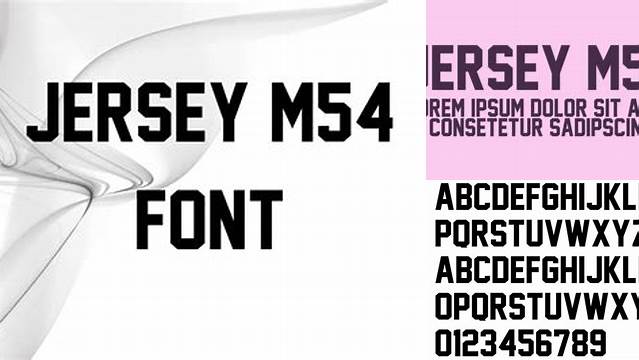
Jersey M54 Font: Free Download & Design Tips
Hey everyone! Today, we're diving deep into the world of typography, specifically focusing on the Jersey M54 font family, and guess what? You can get a jersey m54 font family free download! This awesome font has become a favorite for a ton of design projects, from sports jerseys and apparel to logos and branding. The Jersey M54 font boasts a unique, athletic aesthetic that's both modern and classic. In this article, we'll explore everything about this fantastic font, including where to find it, how to use it, and some cool design ideas to get your creative juices flowing. So, if you're ready to level up your design game, let's jump in!
Jersey M54 Font: Unveiling the Athletic Powerhouse
Alright, guys, let's get down to brass tacks. What exactly is the Jersey M54 font? In a nutshell, it's a typeface designed to capture the spirit of sports and athleticism. Think bold, impactful lettering that screams energy and dynamism. The Jersey M54 font family typically includes various weights and styles, like regular, bold, italic, and sometimes even condensed versions. This versatility makes it perfect for a wide range of applications. The inspiration behind this font comes from the world of sports, particularly the jerseys worn by athletes. The designers clearly took inspiration from the iconic numbers and lettering found on football, basketball, and baseball uniforms. The clean lines, strong presence, and slightly rounded edges give it a friendly yet assertive feel. It's a font that demands attention. If you’re looking to give your designs a sporty vibe, look no further. You'll find that the Jersey M54 font is super legible, even at smaller sizes, which is crucial for things like jersey numbers and team names. Its ability to convey a sense of speed and movement makes it a top choice for anything related to sports. Many designers also use this for branding. You can use it to make a logo for your own sports team, or you can create merchandise. Overall, the Jersey M54 font embodies a blend of style, functionality, and athletic heritage that is hard to match. It’s a versatile and impactful typeface that is ideal for designers who want to create work that resonates with the energy and passion of sports. In short, the Jersey M54 font is more than just a typeface; it's a statement.
Designing with the Jersey M54 Font: Best Practices
Now that you've got your Jersey M54 font family free download and installed it, it's time to put it to good use! But how do you do that? First, pick the right weight and style. The Jersey M54 font often comes in various weights (like regular, bold, and italic). Consider the purpose of your design. For headings and titles, go bold. For body text, stick to regular. Also, think about the overall tone you want to create. Bold weights convey strength, while italics can add a sense of motion. Next, make sure you choose the right colors. Complementary colors that enhance the energetic feel of the font are the best. Think about high-contrast color schemes that make the text pop. The right color can bring your design to life. Experiment with different color combinations until you find the ones that work best for your project. Another tip is to pay attention to spacing. Kerning and leading, which control the space between letters and lines, can significantly impact readability. Too much or too little space can make your design look cluttered or disjointed. Use design software to adjust these settings and ensure your text is easy to read. Be aware of the background and context. Consider how your text interacts with the background. Is it easy to read? Does it complement the design? Ensure your text is legible against the background. Use it on any dark backgrounds and stick to white or light-colored text. Try to ensure your background doesn’t distract from your words. One of the things you need to do is to keep it simple. Don’t overload your design with too much text. Focus on clear, concise messaging that is easy to understand. Less is often more in design. It will make your design more impactful. This is important in designing because you should focus on your target audience.
Jersey M54 Font in Action: Design Project Ideas
Ready for some inspiration? Let’s explore some cool design projects where the Jersey M54 font really shines. Sports Logos: Create logos for sports teams, leagues, or individual athletes. The bold, athletic feel is perfect for this. Experiment with different color schemes and shapes. Use the font to spell out the team name. Make sure the logo design is memorable. Team Apparel: Design t-shirts, jerseys, and other apparel for teams or sports-related businesses. Place the team name or player’s number on the front. The versatility of the Jersey M54 font makes it ideal. Event Posters: Promote sports events, tournaments, and championships with eye-catching posters. Use the font for the event title, date, and other important information. Add dynamic images to make the poster stand out. Consider the right color for your design. Social Media Graphics: Create engaging social media posts. Share quotes, announcements, and motivational messages. Use the Jersey M54 font to capture your audience's attention. Make your posts shareable by adding hashtags and calls to action. Website Headers: Use the font for website headers and titles. Create a strong visual identity for your website. Ensure your website is optimized for mobile devices. Keep the design simple and easy to navigate. Invitations: Design invitations for sports-themed parties and events. Incorporate the font into the design to set the tone. Use it for names, dates, and other event details. Make the invitation design appealing. You can customize and add images. These are just a few ideas to get you started. The possibilities are endless. The key is to be creative and experiment with different applications to discover the true potential of this amazing font.
Jersey M54 Font vs. Similar Athletic Fonts
So, you've got the Jersey M54 font family free download, but what if you want to explore other options? There are many similar fonts out there. Knowing how the Jersey M54 compares to others can help you make the best choice for your project. One popular alternative is the Bebas Neue font. While not as overtly sporty, Bebas Neue offers a clean, modern aesthetic that works well for headlines and titles. It is known for its tall, condensed letterforms. The bold design makes it highly readable at different sizes. The Impact font is another font that's a good choice. It's bold and designed for maximum visual impact. Impact is ideal for posters and headlines where you want to grab attention. However, its slightly aggressive style may not suit all projects. Another strong competitor is the College font. It's inspired by collegiate sports and has a similar athletic vibe to the Jersey M54 font. It’s suitable for sports-related design projects and has different variations. Other options to consider are fonts like Blockletter and Varsity. These are also designed with sports in mind and have similar bold, impactful designs. When comparing these fonts, consider things like legibility, style, and the overall tone you want to achieve. The Jersey M54 font strikes a great balance between modern design and athletic heritage. It has a classic style, while other options, like Impact, are more aggressive and suitable for a very specific style of design. Other fonts that also have similarities can be helpful if you're looking for something with a similar feel.
Jersey M54 Font and Branding: Building a Visual Identity
How can you leverage the Jersey M54 font family free download to build a strong visual identity? Here’s how. First, the font should align with your brand's personality. The Jersey M54 font has a sporty, energetic vibe. This is great for brands that want to convey a sense of athleticism. Ensure the font reflects your brand's core values and target audience. Choose different weights of the font. The versatility of the font is key. Consider using different weights for your logo, headlines, and body text. The Jersey M54 font offers many variations, and you can create variety in your design. Use the font in your logo design. A well-designed logo is the cornerstone of brand identity. The font can be used to create a memorable logo that immediately conveys the brand’s message. Make the logo stand out. Incorporate it in your marketing materials. Integrate the font across all your marketing channels. Create a cohesive brand image. Use the same font for your website, social media, and print materials. This consistency helps build brand recognition and trust. Use the font to tell a story. Make sure the font works well with the other elements of the brand. This includes imagery, color palettes, and overall design. The font can work with your visuals. Make sure that your visuals are aligned with the font. Consistency is key when building a strong visual identity. By incorporating the Jersey M54 font into your branding strategy, you can create a strong visual identity.
Jersey M54 Font: The Ultimate Guide to Creativity
So, there you have it! A complete guide to the Jersey M54 font family free download. This guide gives you the knowledge and inspiration you need. Armed with this, you can unleash your creativity! The Jersey M54 font can be used for many projects. Now, you can use this font to make great designs. The Jersey M54 font is a great choice. It is a great way to give your designs an edge. With this guide, you have the resources. The resources help you learn and use the Jersey M54 font. Go and make your own cool designs.